Some projects call for softness, elegance, and a touch of romance. Floral and feminine script fonts bring that delicate, graceful quality to your design, perfect for wedding invitations, beauty branding, or anything that wants to feel refined and heartfelt.
Here are 4 fonts from Artisan Font to help you create that elegant, romantic look.
1. Flowie
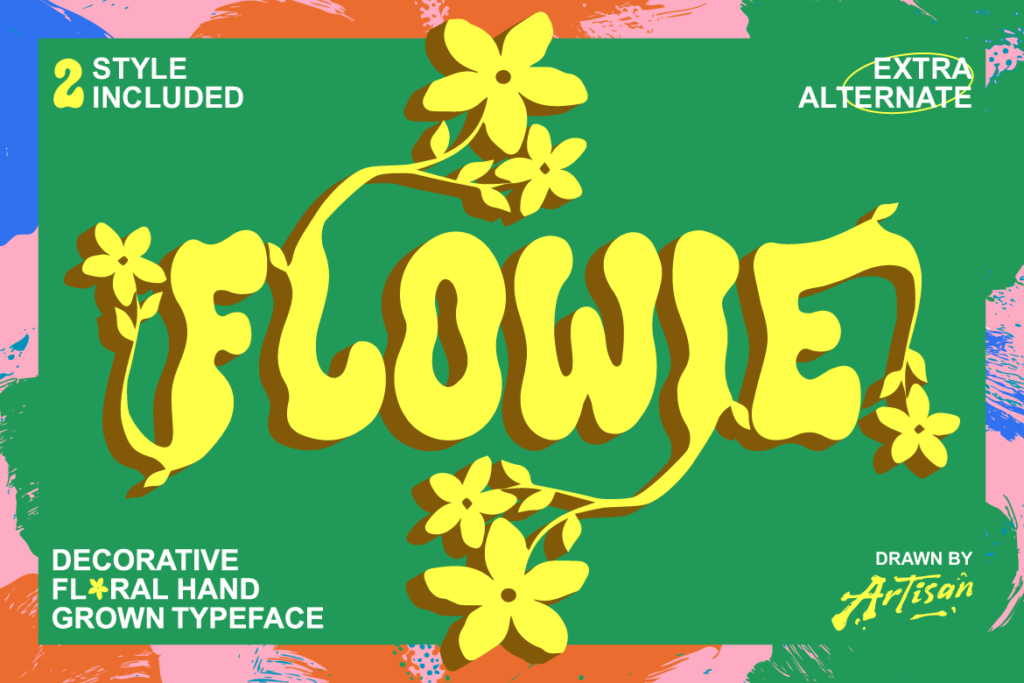
Flowie is a decorative, hand-grown floral typeface with organic, flowing letterforms that feel like they were sketched by hand. It brings a soft, natural elegance to any design.
Great for: wedding stationery, botanical branding, packaging, and greeting cards.
2. Mowina
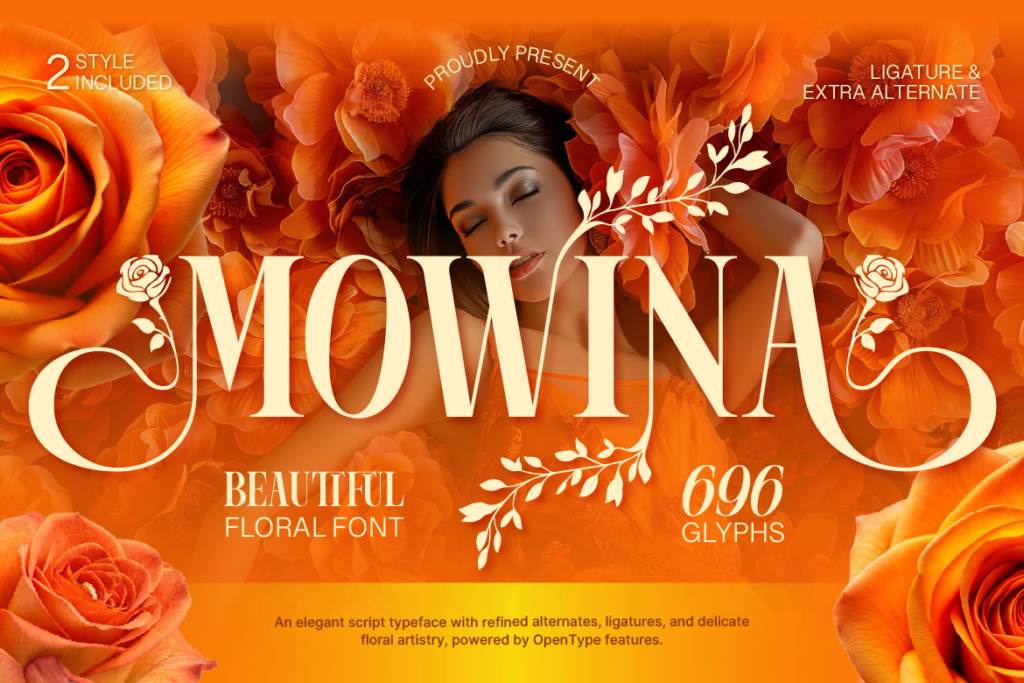
Mowina is a beautiful floral script with graceful, sweeping strokes that feel romantic and refined. It’s the kind of font that instantly elevates a design with minimal effort.
Great for: wedding invitations, beauty and skincare branding, and elegant social media graphics.
3. Lisaline
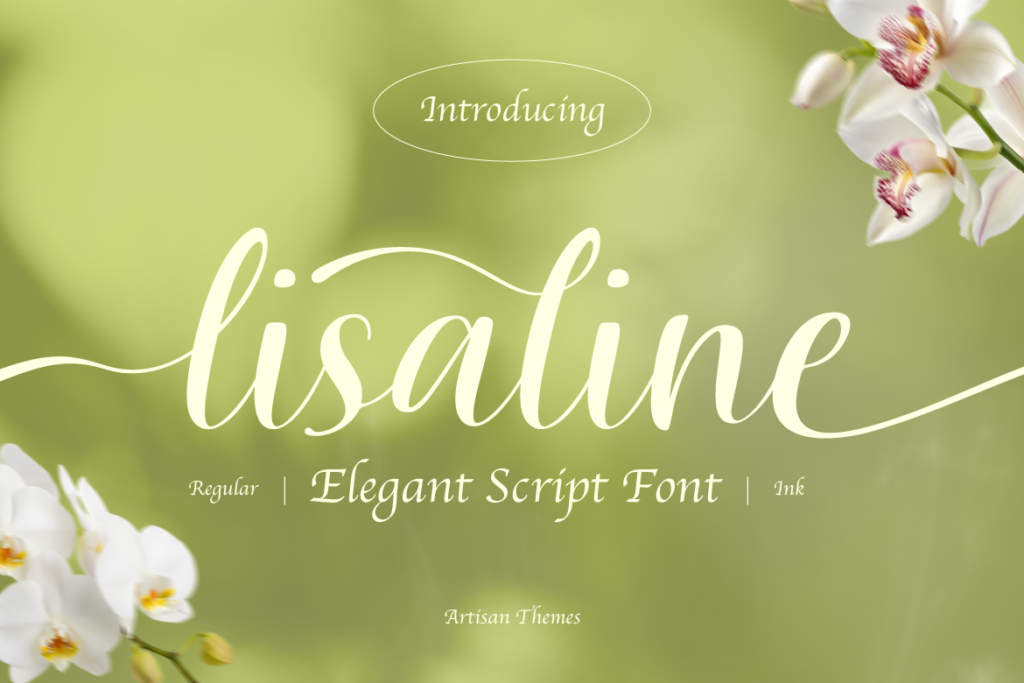
Lisaline is an elegant script font with smooth, flowing letterforms and a timeless, graceful quality. It strikes a lovely balance between delicate and legible.
Great for: branding, logos, packaging, and any design that wants a soft, sophisticated touch.
4. Cantilos
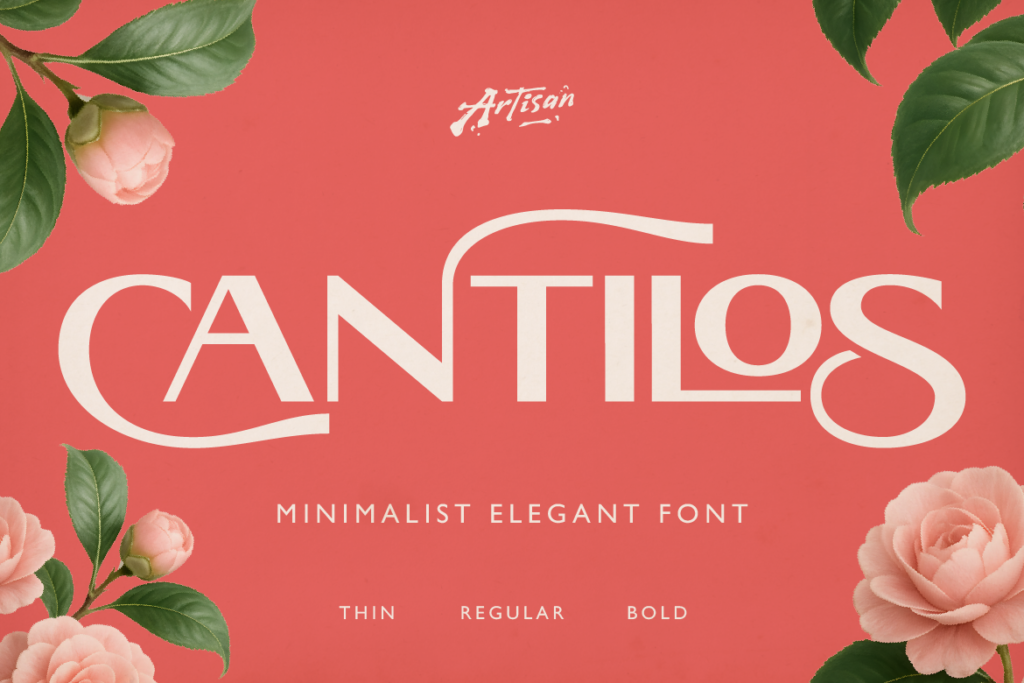
Cantilos is a minimalist elegant font with clean, refined letterforms. It’s understated in the best way, bringing quiet sophistication to any design without being overly decorative.
Great for: minimalist branding, beauty product packaging, and elegant editorial design.
Add a Touch of Romance
Whether you need something soft and hand-drawn or clean and refined, these 4 fonts bring a graceful, feminine touch to your next design project.